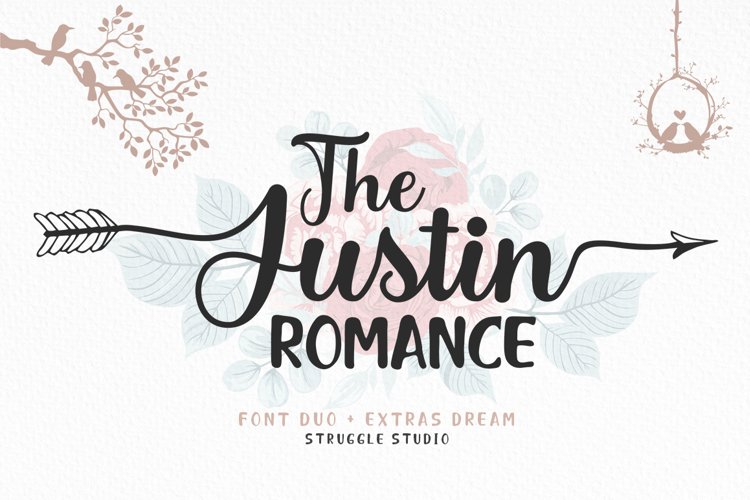
The Justin Romance - (Font Duo plus Extras) is a Duo and Extras font made with brushes, so it looks modern, organic, dynamic, and energetic. Can be used for various purposes. such as titles, signatures, logos, correspondence, wedding invitations, letterhead, signage, labels, bulletins, posters, badges, etc.